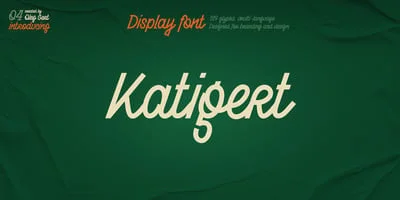
Katigert Font
The Katigert Font excels in various design applications including contemporary brand identities, modern editorial layouts, sophisticated publication design, professional business communications, sleek product packaging, progressive corporate signage, refined web typography, innovative marketing materials, elegant stationery design, and distinguished commercial projects that demand contemporary sophistication and versatile design excellence.
What makes the Katigert Font exciting is its perfect balance of modern functionality with distinctive character through letterforms that demonstrate exceptional versatility while maintaining consistent personality across diverse applications. This typeface embodies contemporary design intelligence through carefully crafted characters that adapt seamlessly to different contexts while preserving their unique visual identity. The font's versatile personality makes it perfect for organizations seeking typography that communicates professional competence, design awareness, and adaptable excellence through letterforms that perform exceptionally well in both traditional print applications and cutting-edge digital environments.
The Katigert Font family typically includes comprehensive weight variations from light to bold, featuring corresponding italic styles and extended character sets optimized for multilingual communication and diverse design requirements. These family options often include condensed variants for space-efficient applications, specialized symbols for professional use, and stylistic alternates that enhance the font's adaptability while maintaining design consistency across various media and cultural contexts.
Professional designers and progressive organizations consistently select Katigert Font for projects requiring typography that delivers reliable performance with distinctive character. This typeface excels in corporate communications, editorial design, and contemporary branding where establishing professional credibility while maintaining visual interest is essential for effective communication. The font's adaptable character makes it particularly effective for international applications and cross-platform design systems. Download Katigert Font today to access this versatile typeface that transforms communications with its contemporary sophistication and professional reliability, creating compelling design experiences that demonstrate both functional excellence and distinctive personality while maintaining optimal performance across diverse applications and cultural contexts.